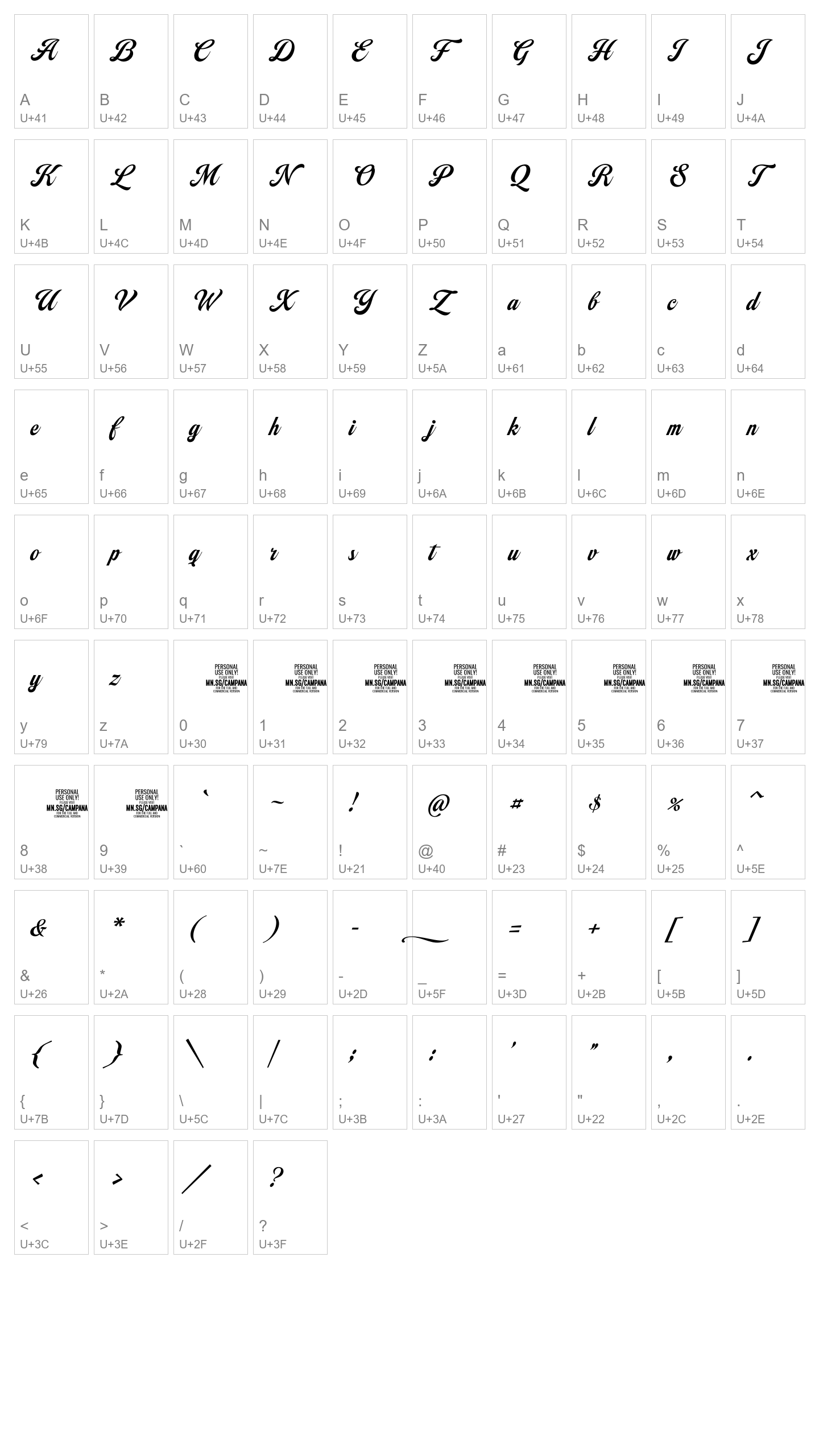
Campana Script
Campana Script is your classical elegance typeface.
Designed with heavy lines and intricate swashes, Campana Script suits formal headlines or a tasty logotype.
Use underscore _ to make a swash.
Example: Deco_rative
Use multiple underscores to make different underlines.
Example: Candy__shop